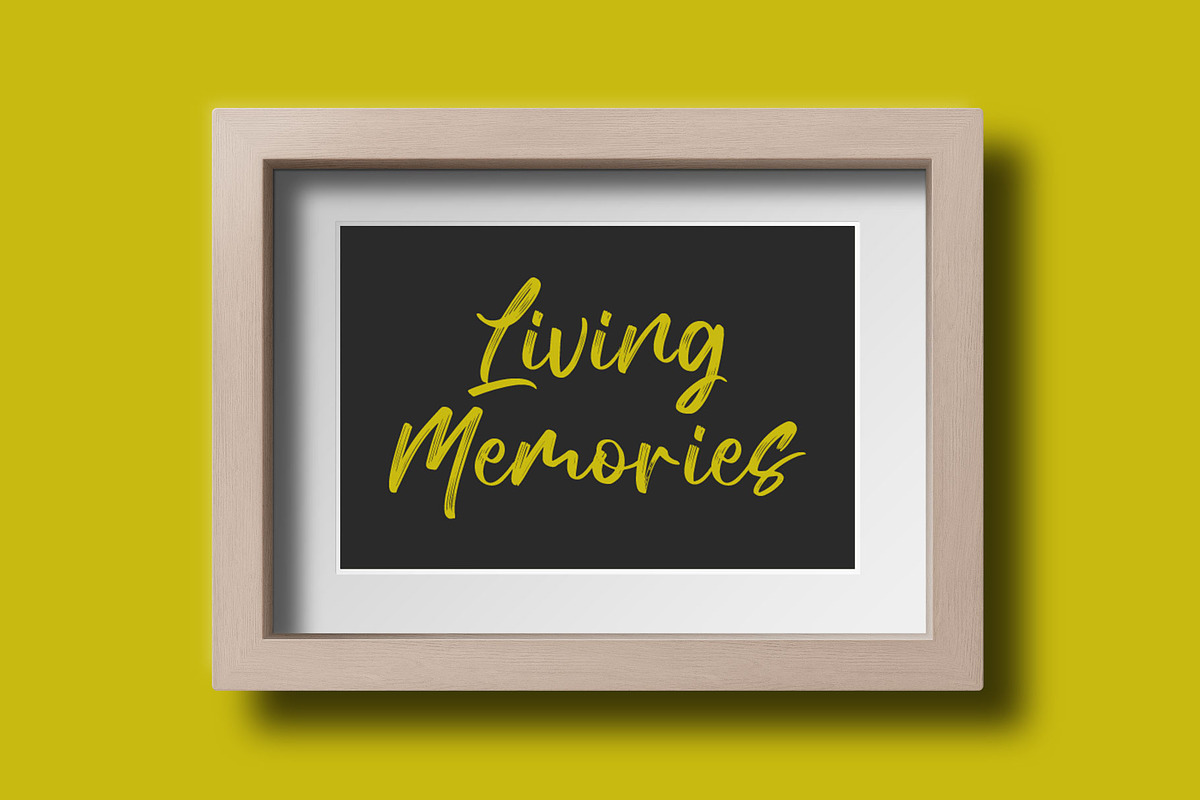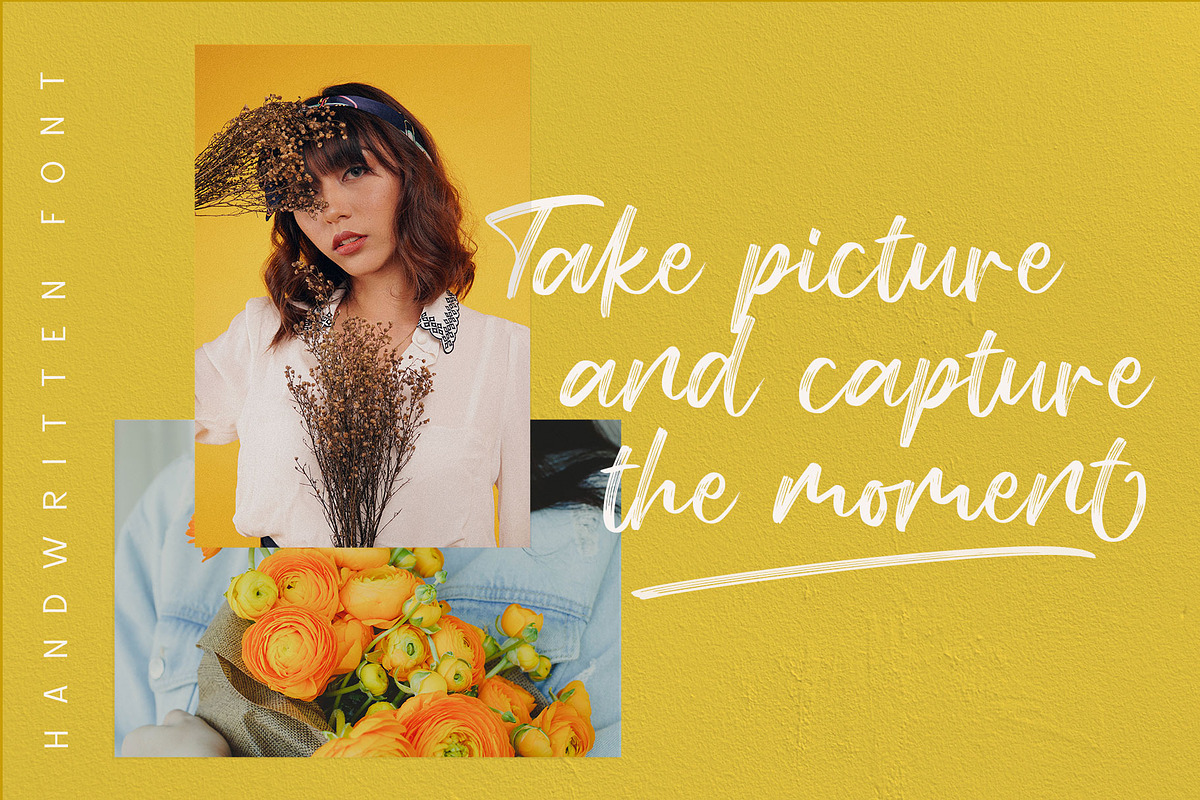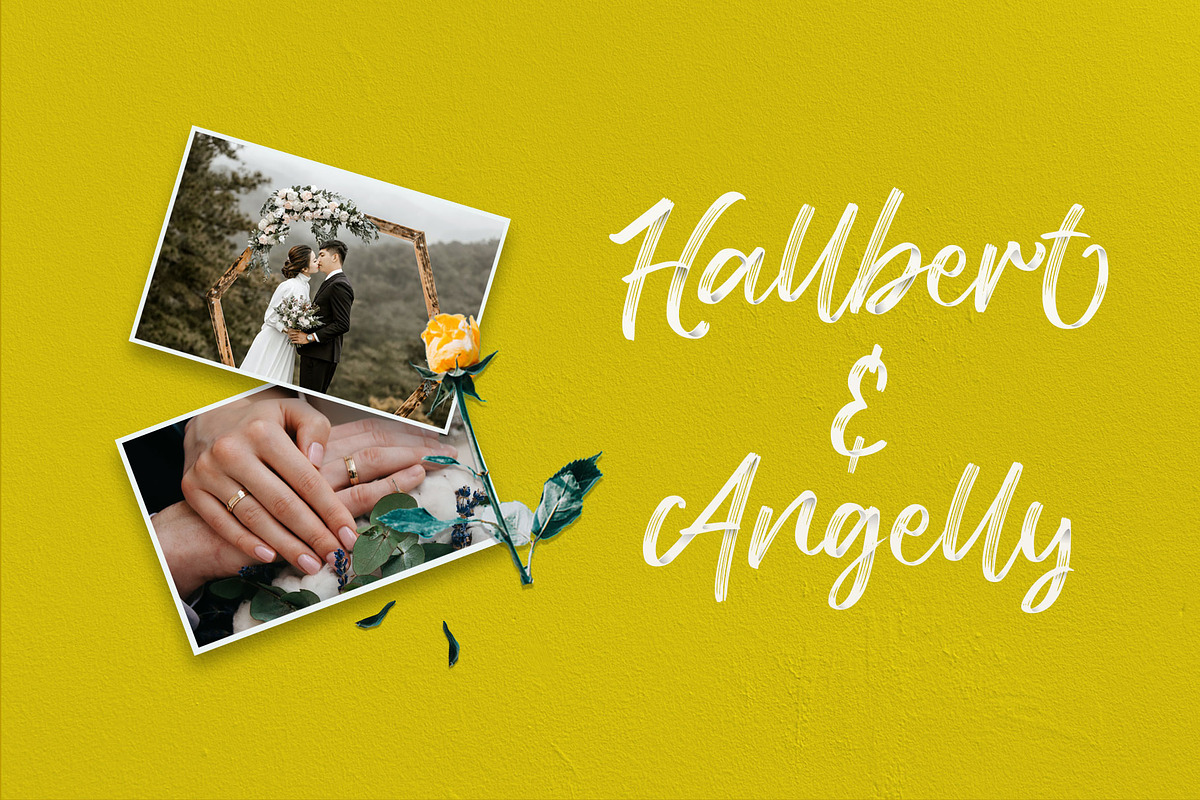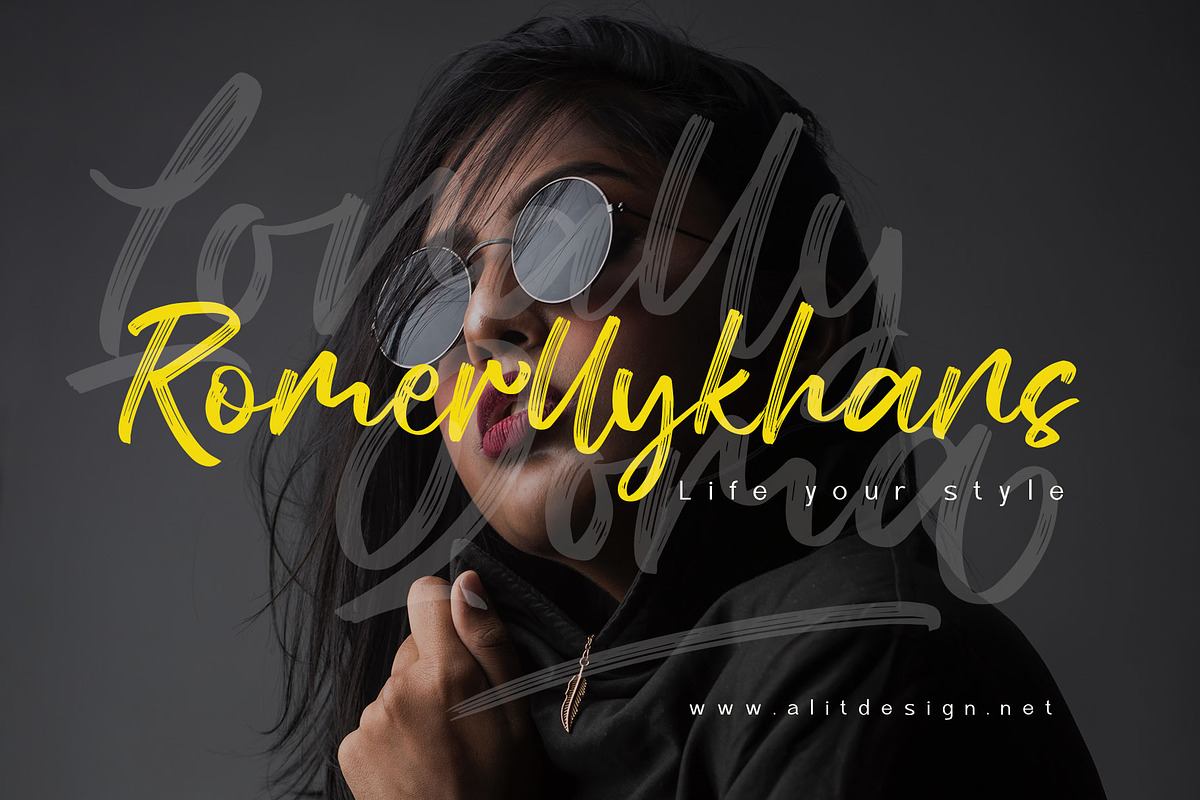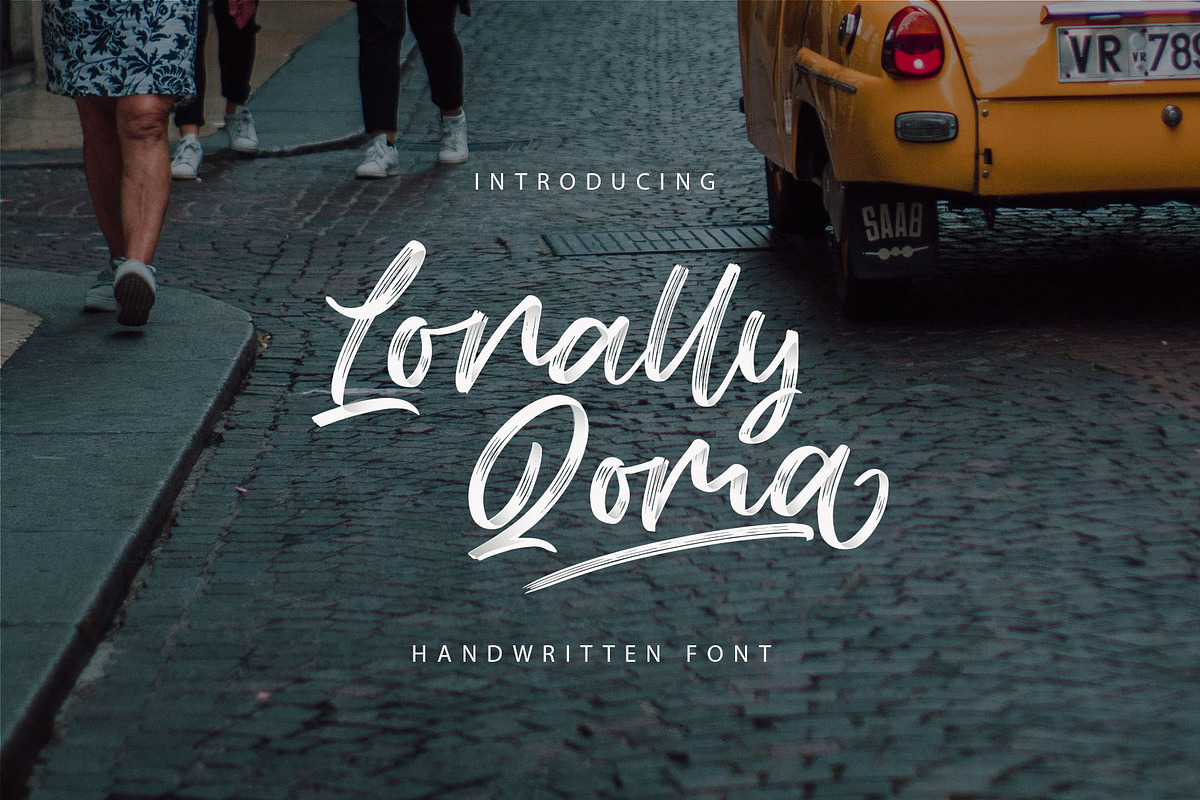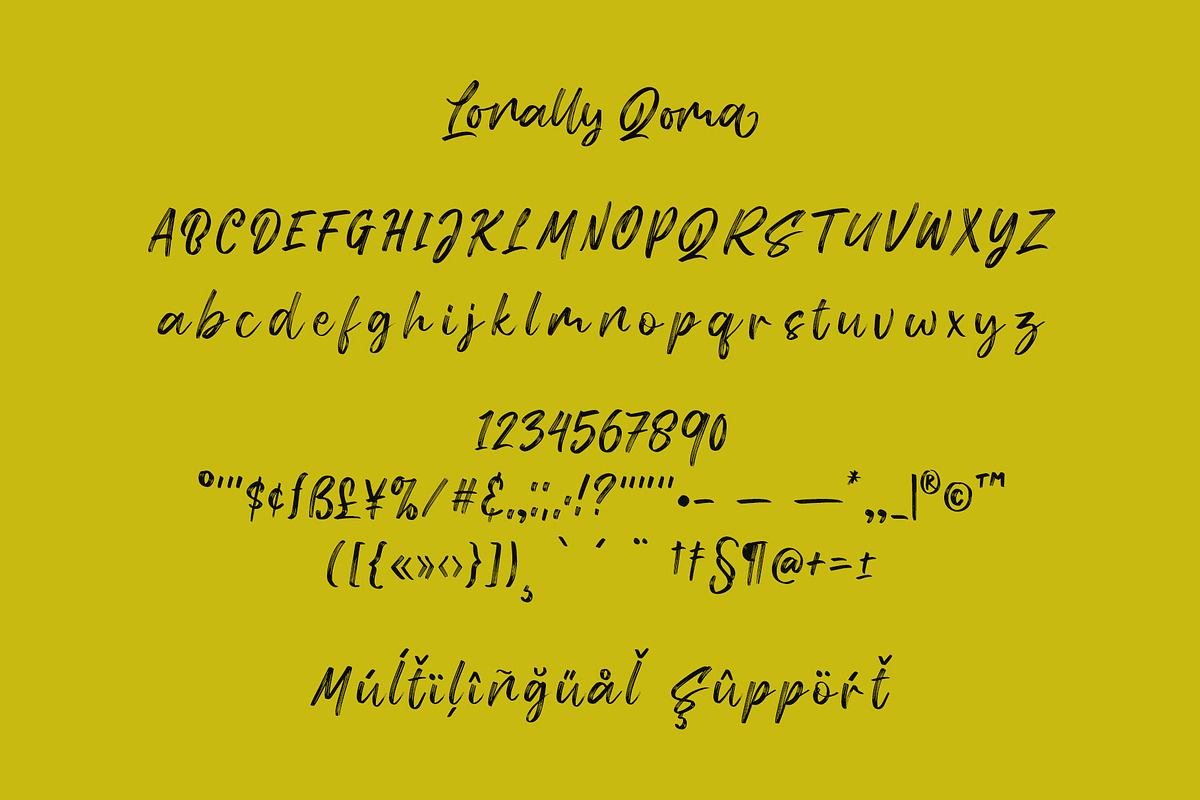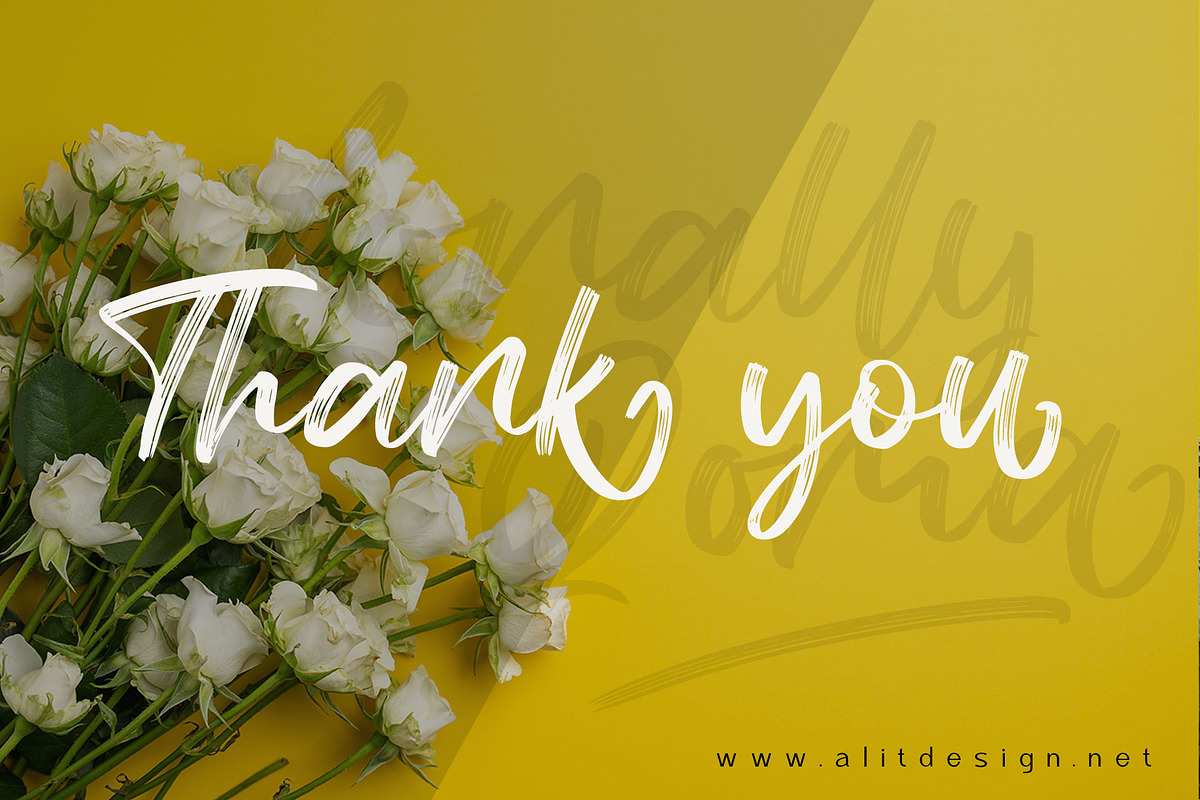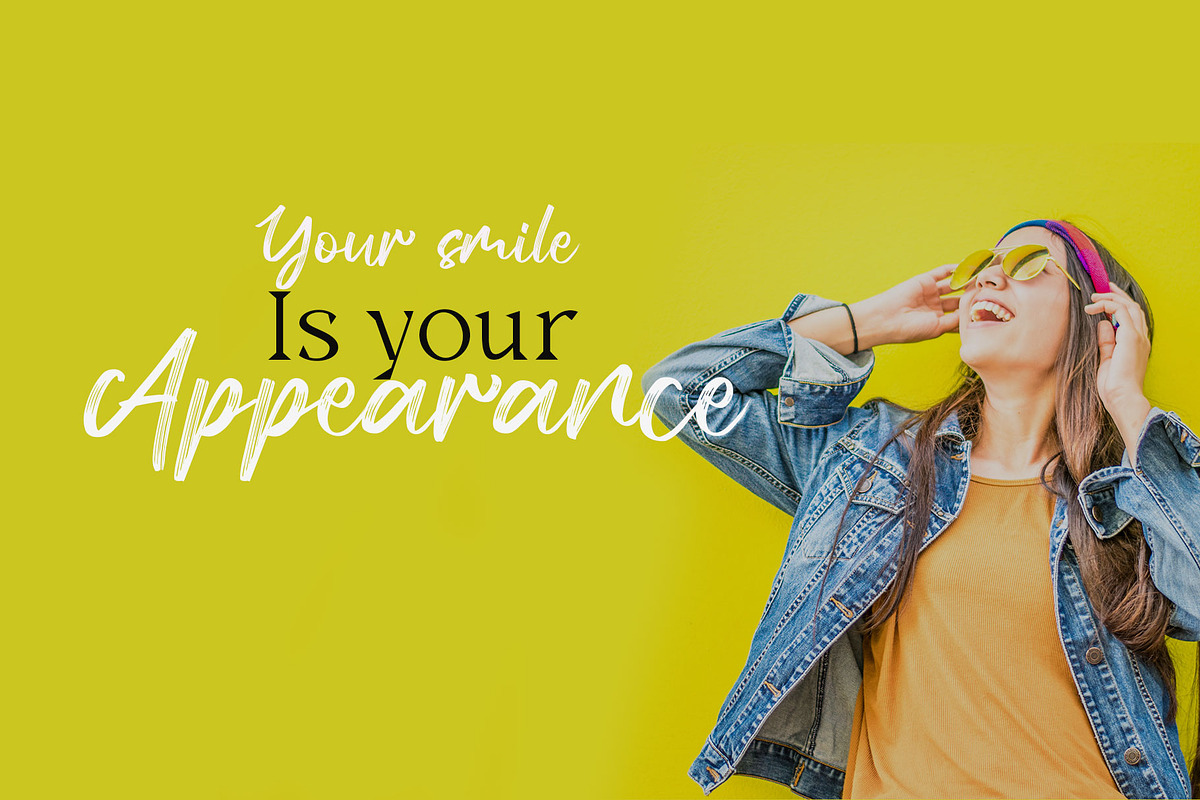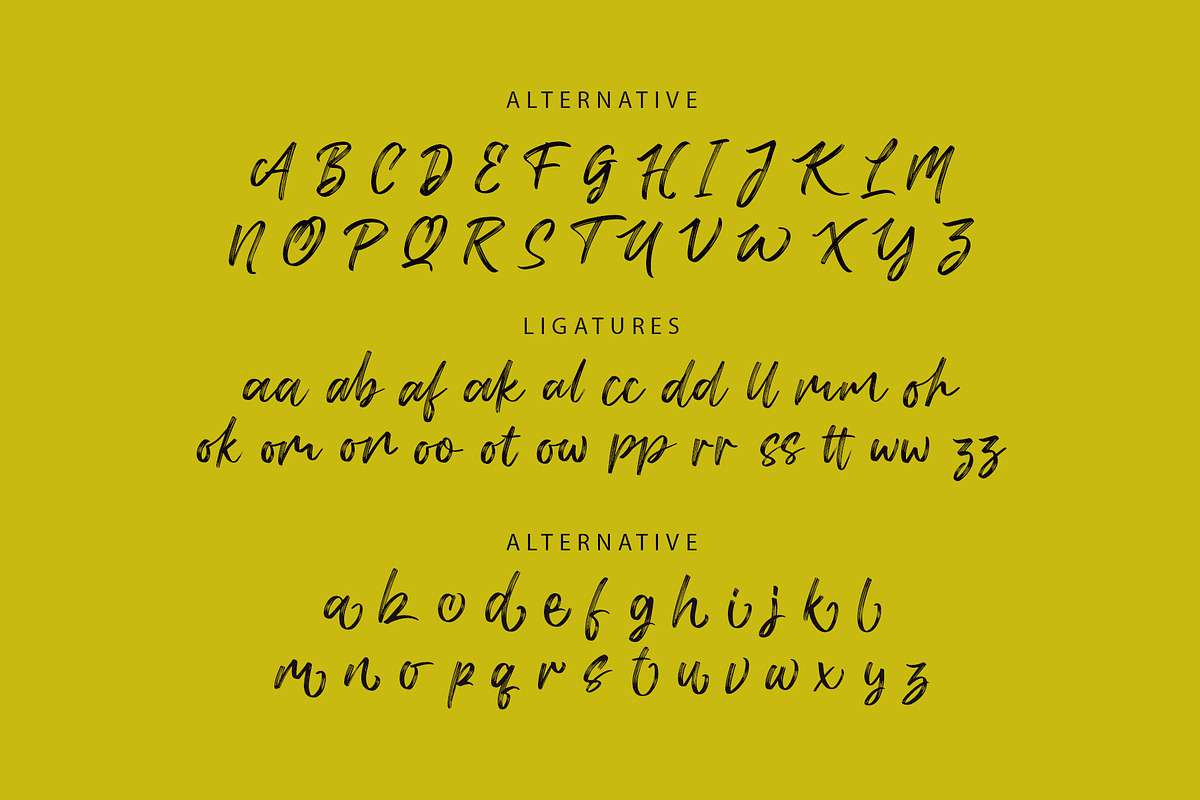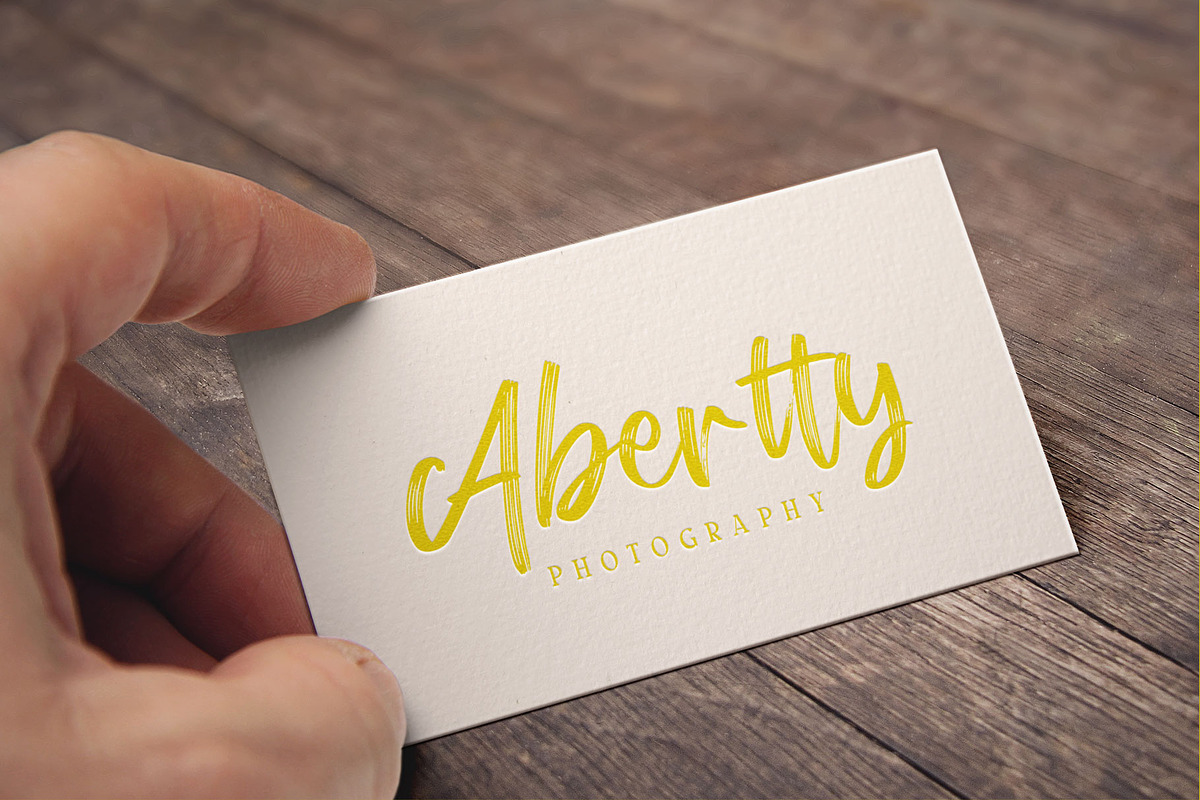
Lonally Qoma
Lonally Qoma is a very beautiful and unique Classy Font that comes with a very beautiful ligature surprise with different font characters so it is perfect for your design needs such as printed quotes, invitation cards, social media, product packaging, your website and more!